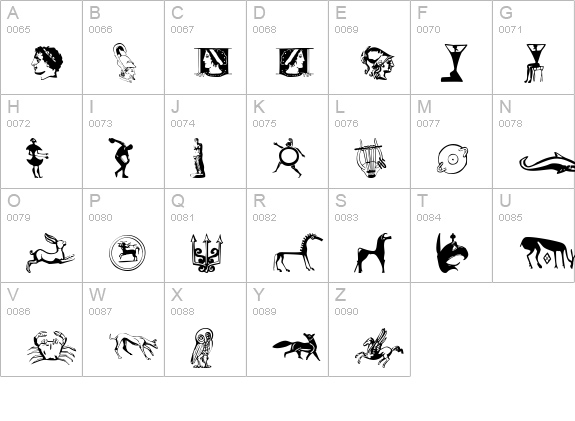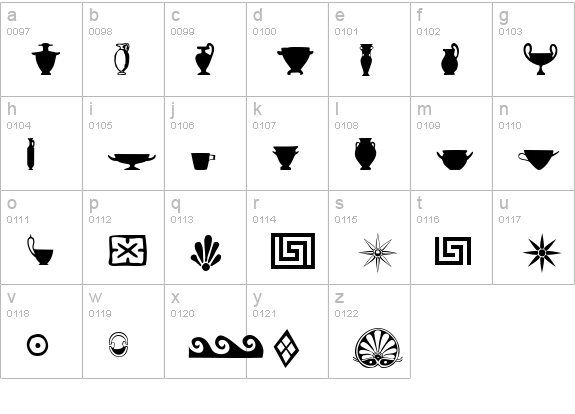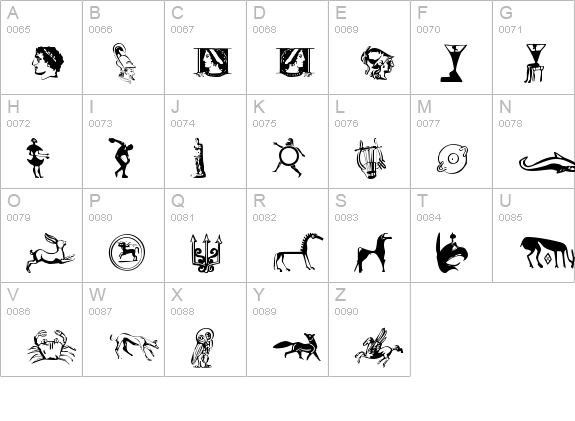
P22 Acropolis Extras is a captivating and versatile font that effortlessly adds an extra touch of elegance and sophistication to any design project. With its intricate details and refined curves, this font is perfect for creating eye-catching headlines, logos, and branding materials. The beauty of P22 Acropolis Extras lies in its ability to seamlessly complement various design styles, whether it be modern or vintage, formal or playful. This font's extensive character set includes a wide range of decorative elements, such as ornate frames, elegant swashes, and delicate flourishes, allowing you to effortlessly embellish your designs with a touch of finesse and artistry. One of the most remarkable aspects of P22 Acropolis Extras is that it is completely free to download at FontsMarket.com. This means that you can enhance your creative projects with this exquisite font without having to spend a dime. Whether you're a professional designer or a passionate hobbyist, P22 Acropolis Extras offers you the opportunity to elevate your designs to new levels of sophistication and visual appeal. So why wait? Download P22 Acropolis Extras today from FontsMarket.com and unlock a world of endless creative possibilities. With this free font at your fingertips, you'll be able to effortlessly craft stunning designs that leave a lasting impression on your audience.